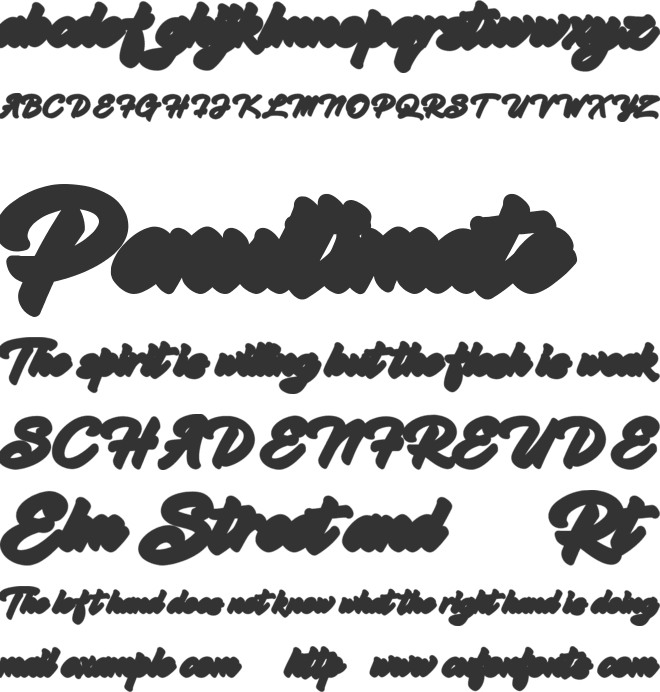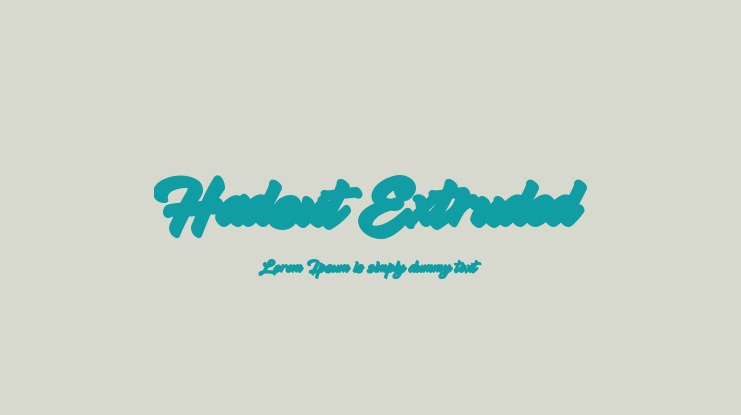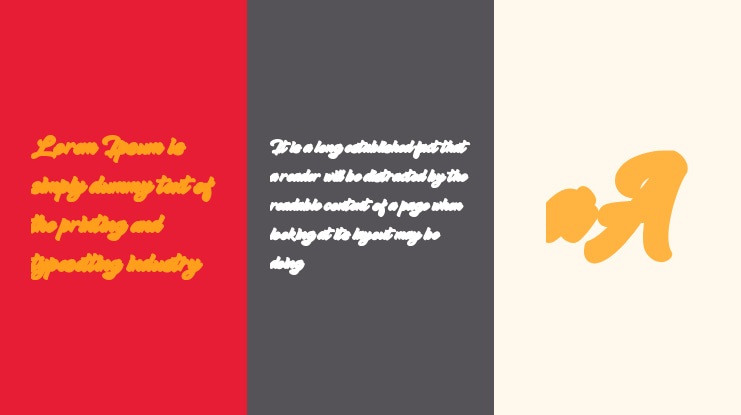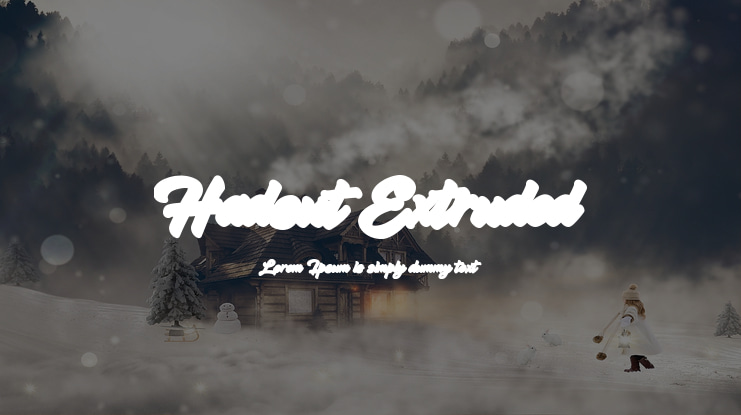
Hadsut Extruded Font Family
Introducing, Hadsut Is a Beautiful font of retro style, Give your typography design a touch of retro style with Hadsut, Hadsut is one of hand lettering project. It was very inspired from the famous retro typography designs   More...
Hadsut also comes with extra Extruded Font version. So you won't need extra effort for create an extrude effect for this font. This mean it will saves your time.
Hadsut Comes With 360 Glyphs and OpenType Features are also added to this font.
The Features includes: Stylistic Alternates, Swashes, Ligatures,Linguage Support and Stylistic Set. You can pick the alternate for all style
Hadsut has given PUA encoded (fonts with special code).